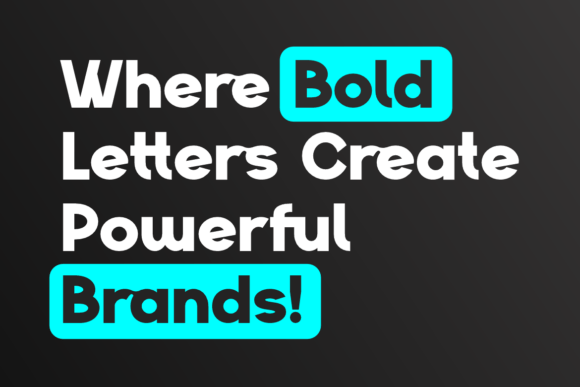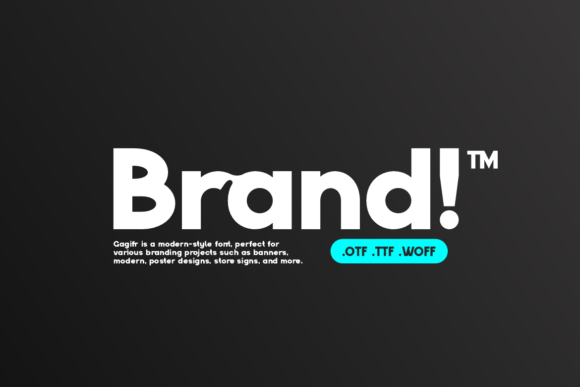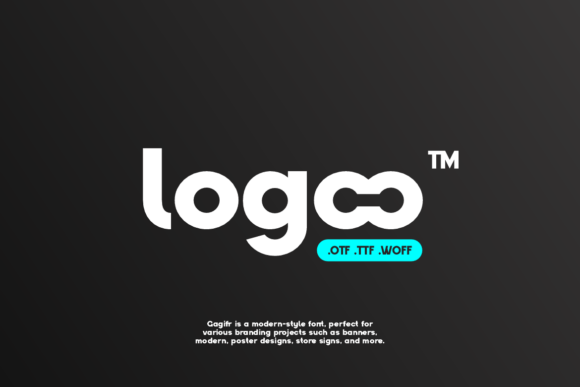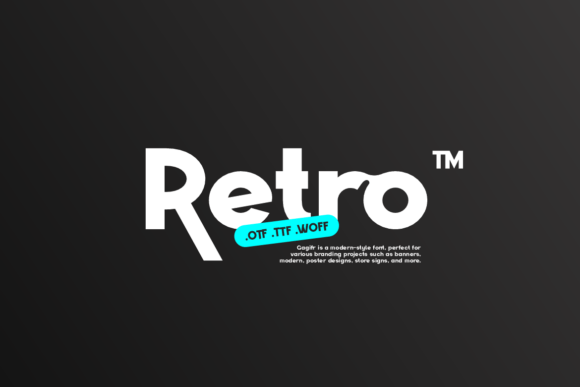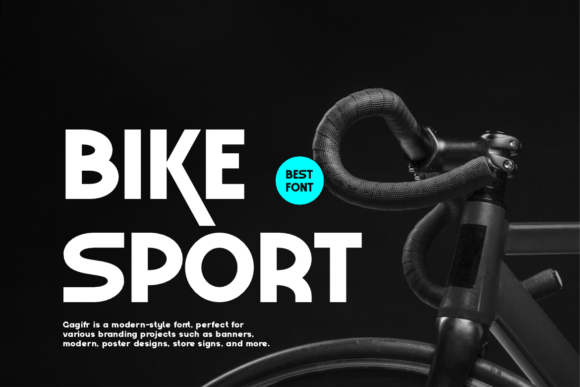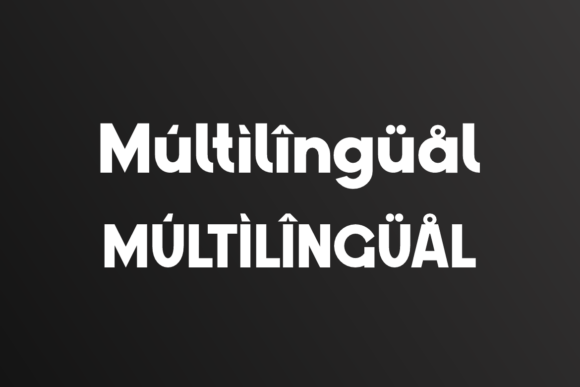
Elevate Your Visual Identity with Gagifr Font
In the world of typography, a font can make or break the visual identity of a brand. For creators who value precision and style, Gagifr Font is a game-changer. This modern bold display font masterfully balances minimalist structure with avant-garde personality, making it perfect for luxury brands, editorial layouts, and high-end tech packaging.
The Unique Characteristics of Gagifr Font
Gagifr Font is defined by its crisp, geometric apertures and unexpected “stencil-like” breaks, which give it a high-fashion aesthetic that feels both architectural and effortlessly fluid. The font features unique circular motifs and sweeping descenders that transform standard text into a custom piece of art. This distinctive design makes Gagifr perfect for creating a premium, “built-from-scratch” feel that sets your brand apart.
Key Features of Gagifr Font
- Modern Bold Display Font: Gagifr is designed to make a statement with its bold and modern design.
- Minimalist Structure: The font’s minimalist structure provides a clean and sleek look that’s perfect for luxury brands.
- Avant-Garde Personality: Gagifr’s avant-garde personality adds a touch of sophistication and elegance to any design.
- Crisp Geometric Apertures: The font’s crisp geometric apertures give it a precise and architectural feel.
- Unique Circular Motifs: Gagifr’s unique circular motifs add a touch of creativity and whimsy to any design.
- Sweeping Descenders: The font’s sweeping descenders create a sense of fluidity and movement.
Perfect for Luxury Brands and High-End Designs
Gagifr Font is perfect for creating luxury brand logos, sleek editorial layouts, and high-end tech packaging. Its unique design and premium feel make it ideal for brands that want to stand out from the crowd. Whether you’re a designer, craftsperson, or entrepreneur, Gagifr Font provides the perfect tool to elevate your visual identity.
Why Choose Gagifr Font?
There are many reasons why Gagifr Font stands out from the crowd. Here are just a few:
- Precision and Style: Gagifr Font offers a perfect balance of precision and style, making it perfect for creators who value attention to detail.
- Versatility: The font is versatile and can be used for a wide range of designs, from luxury brand logos to editorial layouts.
- Unique Design: Gagifr Font’s unique design ensures that your visual identity will stand out from the crowd.
How to Use Gagifr Font
Using Gagifr Font is easy. Here are a few tips to get you started:
- Experiment with Different Sizes: Gagifr Font looks great in large and small sizes, so don’t be afraid to experiment.
- Play with Colors: The font looks great in a wide range of colors, so try out different combinations to find the one that works best for your brand.
- Use it for Headings and Titles: Gagifr Font is perfect for headings and titles, but it can also be used for body text.
In conclusion, Gagifr Font is a game-changer for creators who value precision and style. Its unique design, premium feel, and versatility make it perfect for luxury brands, editorial layouts, and high-end tech packaging. Whether you’re a designer, craftsperson, or entrepreneur, Gagifr Font provides the perfect tool to elevate your visual identity. So why wait? Try Gagifr Font today and see the difference it can make.